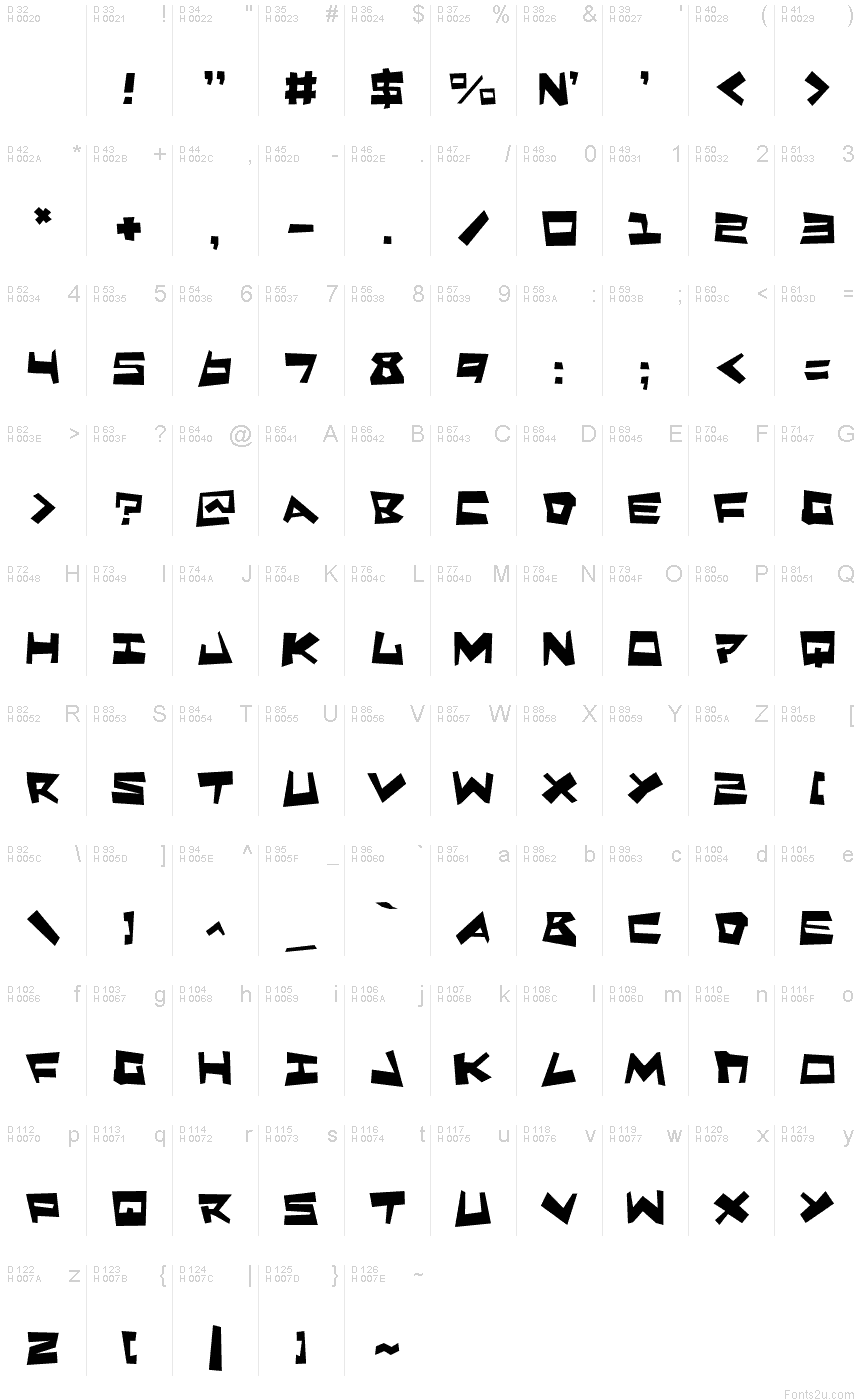
Quake & Shake Max
Quake and Shake Max, from by Iconian Fonts, is a free jagged comic display font with a loud, quake-hit cartoon attitude. The caps lurch at different angles, with chunky black shapes, sharp cuts, and uneven edges that make the whole alphabet feel like it is wobbling mid-impact.
It fits posters, game logos, zine covers, Halloween flyers, and title cards where short words need that cracked, jumpy energy. As a free font, it also works for comic sound effects, stream graphics, and bold monograms, especially when you want the letters to look hand-cut, shaken loose, and a little unruly.